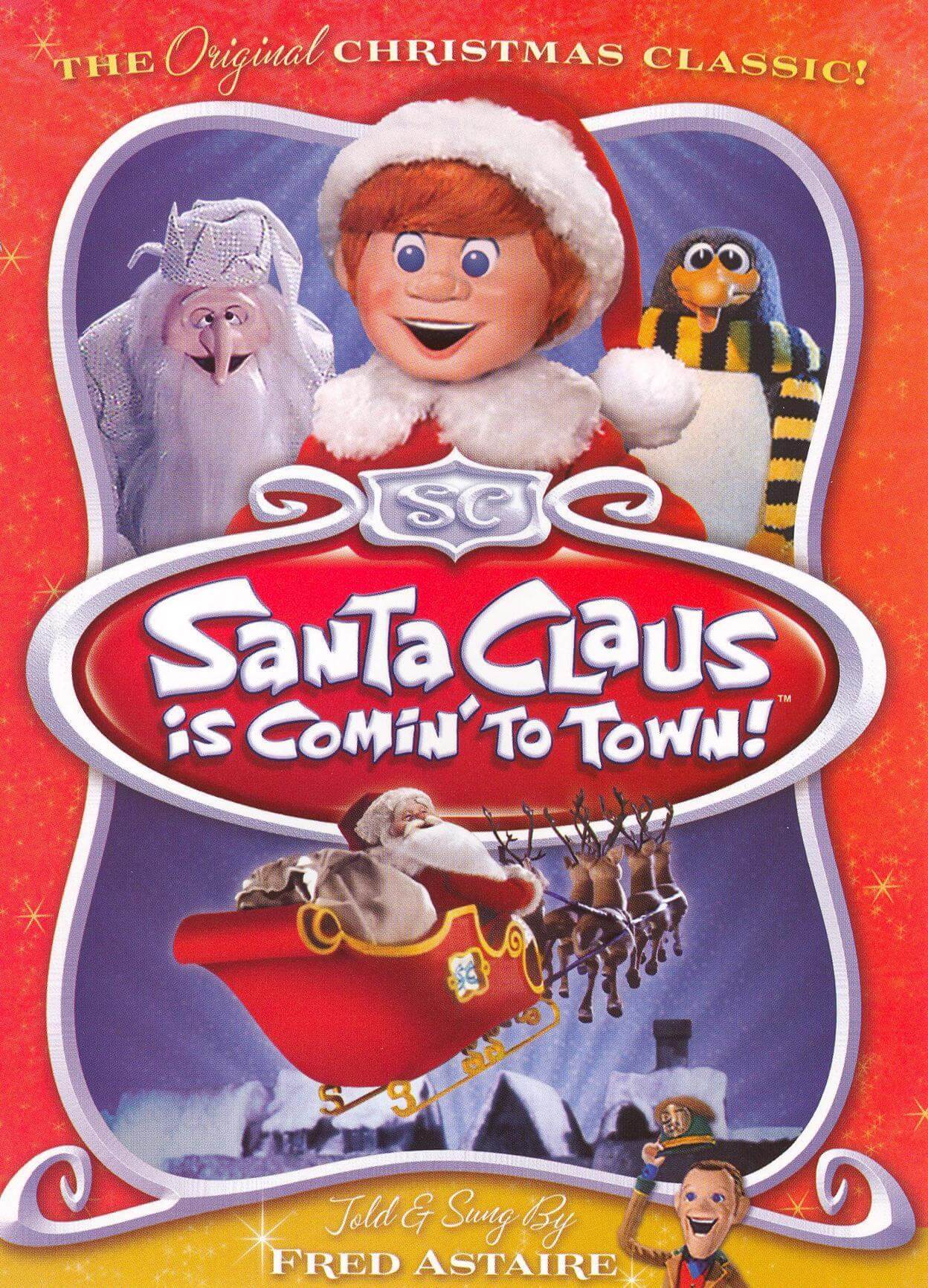
Santa Claus Is Comin' to Town Font
Fonts in UseSanta Claus is Comin’ to Town is a stop-motion animated Christmas television special that tells the story of how Santa Claus came to be. It follows a young Kris Kringle as he learns about the magic of Christmas and how to become the world's most beloved gift giver.
The font used for the title lettering in the poster bears resemblance to the letters from Steve Ferrera's "Kringle Castle" font. You can get this font for free here at FontGet. Along with this, the poster also includes the use of House Industries Holiday Script and a font similar to Mecanorma's Orator for other text.